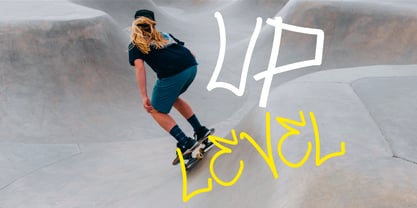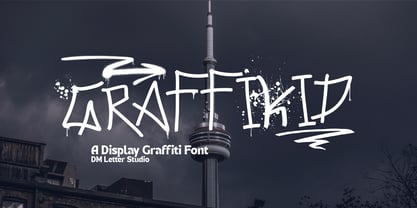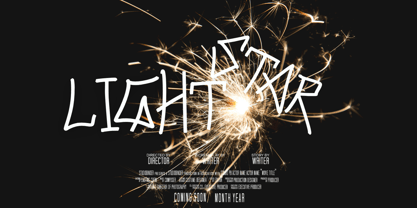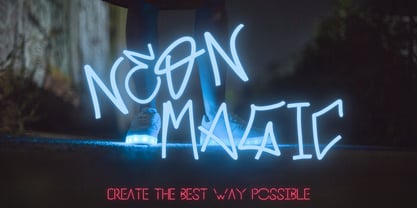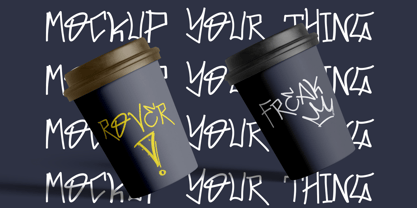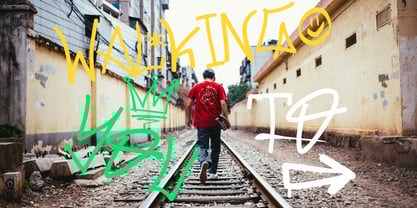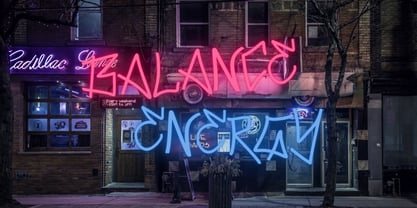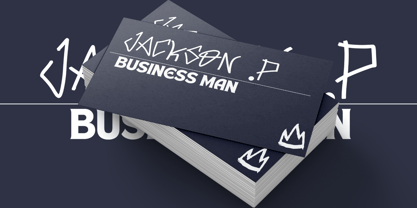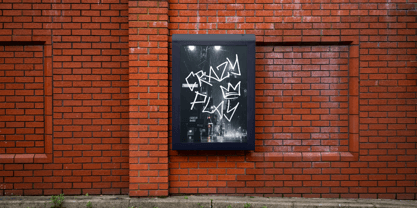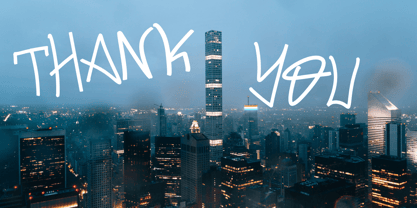
Graffikid
by DM Studio
The Graffikid Font Family was designed by Dimas Prasetyo and published by DM Studio. Graffikid contains 1 styles. More about this family
Graffikid is a dynamic display graffiti font that fuses raw street culture with clean, contemporary design—perfect for creators who want to stand out. Combining modern street-style energy with a subtle elegant structure, Graffikid is ideal for luxury logos, bold food branding, and urban signage that demands attention.
Each letter bursts with personality, featuring authentic spray paint textures, drips, and splatters that embody true graffiti aesthetics. Despite its edgy look, Graffikid retains a modern and elegant layout, making it incredibly versatile—from high-end logo design to bold packaging for food or streetwear.
Whether you're designing a restaurant mural, a fashion label logo, or a bold event sign, Graffikid adds rebellious flair with a polished finish.
• Luxury Streetwear Logos – Where high fashion meets graffiti edge
• Urban Food Packaging – Perfect for cafes, burger joints, and gourmet street food
• Modern Signage & Murals – Expressive, raw, and attention-grabbing
• Elegant Branding with an Edge – Stand out with bold strokes and a premium vibe
• Music, Art, and Culture Projects – From rap albums to gallery posters
• Uppercase Graffiti Letterforms
• Urban Splatter Accents & Arrows
• Clean yet edgy readability
Graffikid brings the heart of the street into refined branding. It's perfect for blending luxury with grit, modernism with edge, and elegance with attitude.